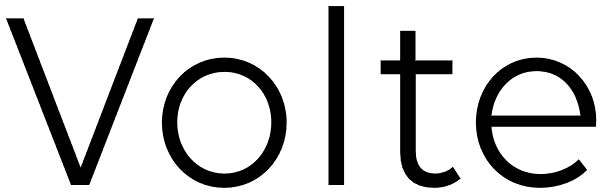
Volte
Graphic designers always search for new geometric sans faces appropriate for our times. ITF is pleased to present them with Volte. Including the five most essential font weights (Light–Bold), Volte Latin differentiates itself from the geometric sans...